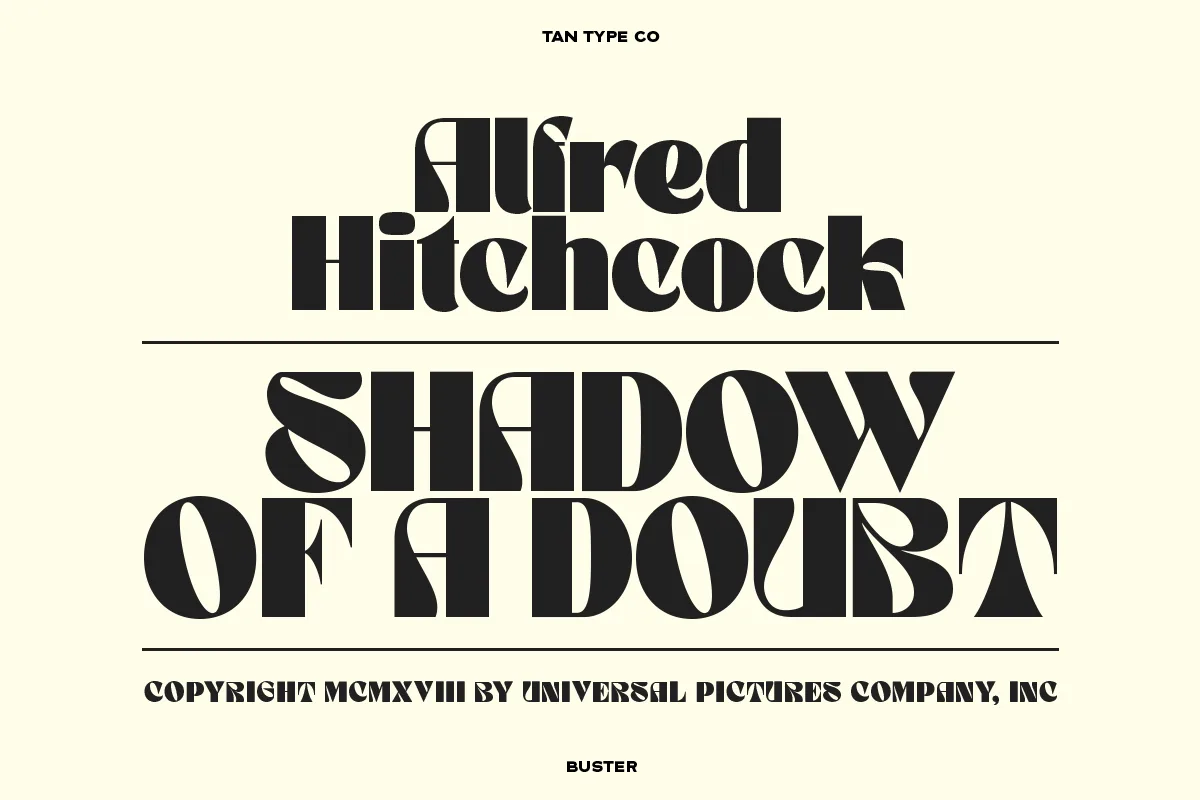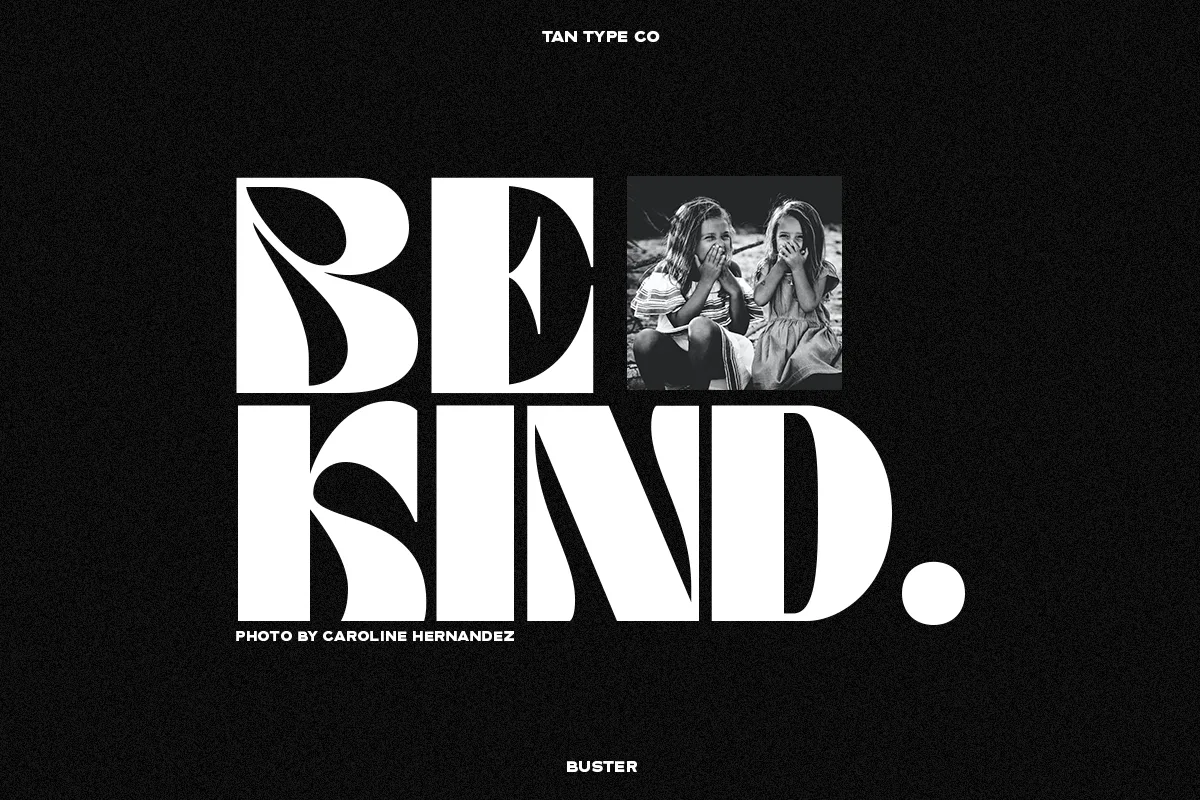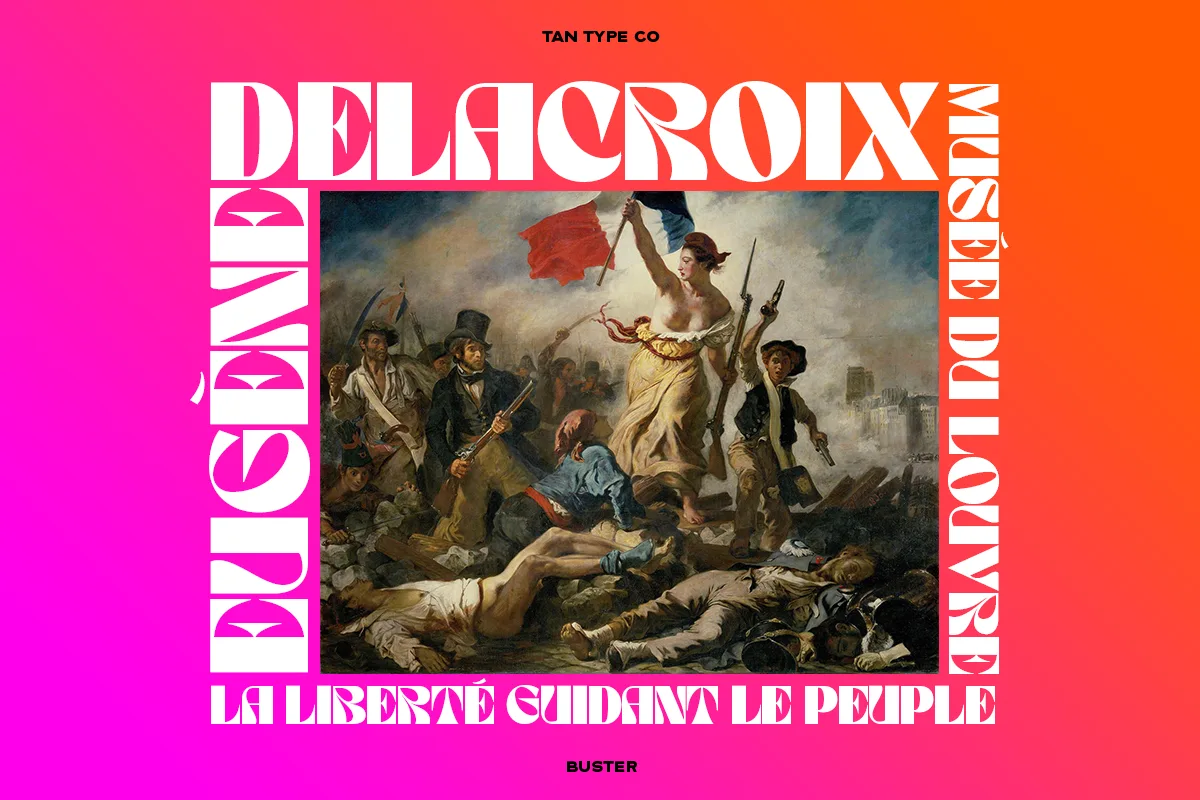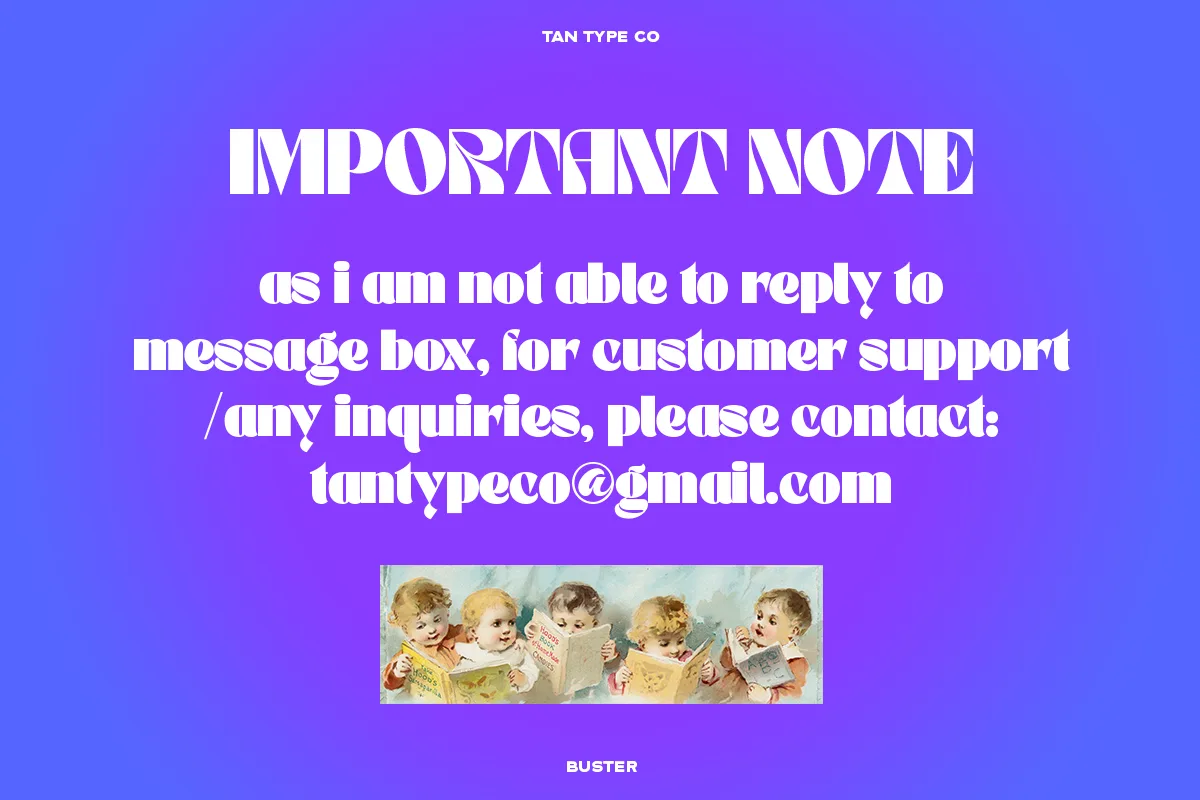
Tan Buster is a retro-inspired display typeface with a bold and groovy personality. Perfect for masthead, logo, or anything your creativity takes you.